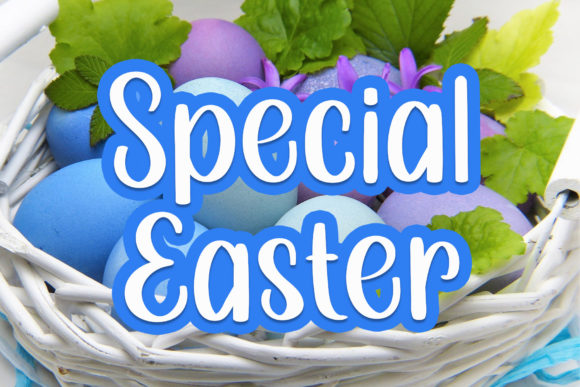
In a world of digital expressions, let your words bloom with the elegance of Special Easter, a script font family crafted with love by Flower. This enchanting creation is not just a font; it's an artistic journey that captures the spirit of life's sweetest moments.
Special Easter is not just a font; it is an artistic expression of joy, a symphony of letters that dances across the screen with grace and charm. Its round, lettered design exudes a sense of warmth and playfulness, inviting your readers to immerse themselves in a world of imagination and delight. Whether it's wedding vows that deserve a touch of timeless romance or greeting cards that need a sprinkle of heartfelt cheer, Special Easter is your perfect companion.
With Special Easter, your designs will blossom into masterpieces that captivate and inspire. Imagine your wedding invitations adorned with flowing script, each letter a delicate petal unfurling in the breeze. Envision your business cards exuding professionalism yet retaining a touch of whimsy, leaving a lasting impression on potential clients. And as your logo takes shape, adorned with the unique charm of Special Easter, it becomes a symbol of creativity and excellence that sets you apart from the ordinary.
But Special Easter's allure extends beyond mere aesthetics. This font family is a versatile chameleon, adapting seamlessly to a kaleidoscope of design projects. From billboards that command attention to social media posts that spark engagement, Special Easter weaves its magic, leaving an unforgettable mark on every platform.
Join the growing community of artists, designers, and creative entrepreneurs who have discovered the transformative power of Special Easter. Let your imagination soar as you explore the endless possibilities this font family offers. From heartfelt wedding vows to captivating marketing campaigns, Special Easter is your key to unlocking a world of visual enchantment.
Don't settle for ordinary fonts that fade into oblivion. Embrace the extraordinary with Special Easter, the script font family that breathes life into your designs and ignites the imagination of your audience. It's time to let your words bloom with beauty and grace, leaving a trail of inspiration wherever they go.